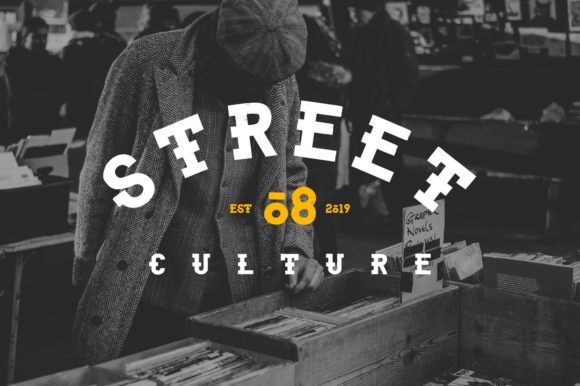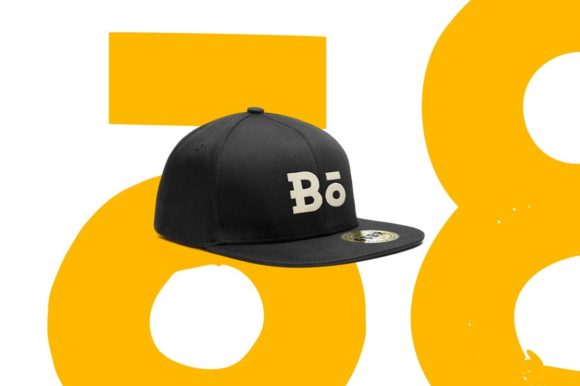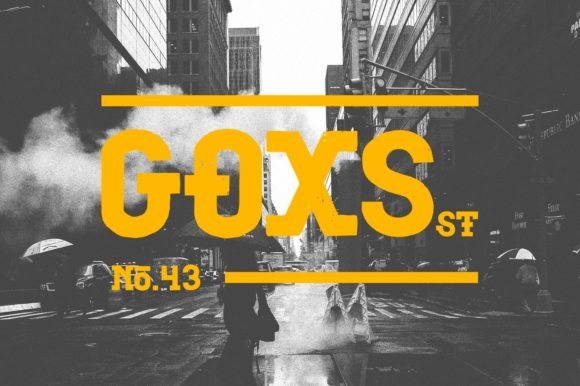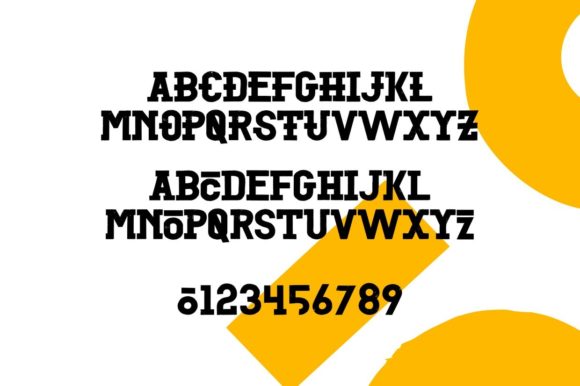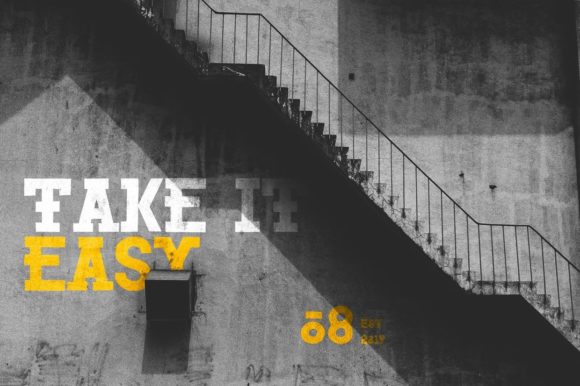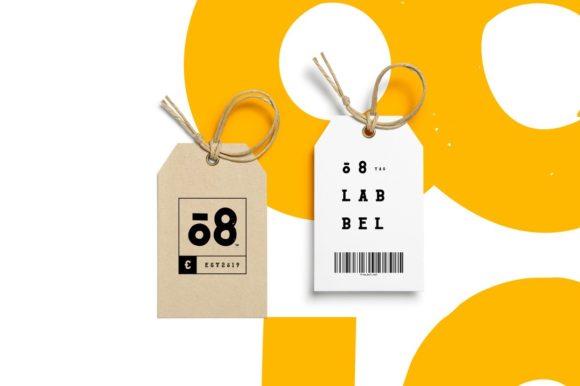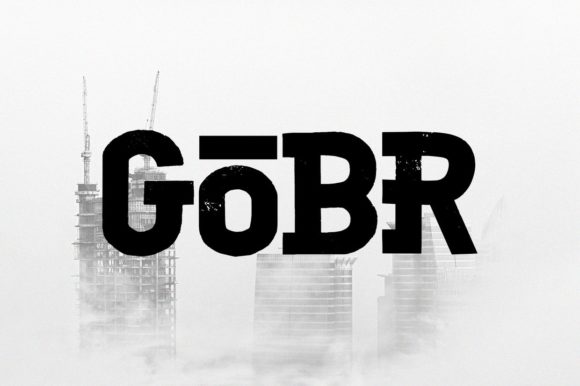
Gobr Font: The Ultimate Choice for Street-Themed Designs
In the world of typography, fonts play a crucial role in conveying the tone and personality of a brand. For designers and crafters looking to create bold and eye-catching designs with a street theme, Gobr Font is an excellent choice. This article will explore the features and benefits of Gobr Font, and why it’s perfect for designs related to street culture, skateboards, murals, hip hop, rap, and more.
What is Gobr Font?
Gobr Font is a bold and solemn slab serif font that exudes confidence and strength. Its robust body and unique design elements make it an ideal choice for designers looking to create striking designs that grab attention. One of the distinctive features of Gobr Font is its unsymmetrical arch of the line, which adds a touch of flexibility and dynamism to the font.
Key Features of Gobr Font
- Bold and solemn slab serif font: Gobr Font is designed to make a statement with its bold and sturdy serif lines.
- Strong body with flexible parts: The font has a robust body, but some parts are flexible, giving it a unique and dynamic feel.
- Unsymmetrical arch of the line: This feature adds a touch of asymmetry to the font, making it more visually appealing.
- Bit of noise for added texture: Gobr Font has a subtle noise effect that gives it a textured and organic feel, perfect for street-themed designs.
Perfect for Street-Themed Designs
Gobr Font is specifically designed for use in street-themed designs, making it an excellent choice for clothing brand designs, skateboard graphics, murals, hip hop, and rap-related projects. The font’s bold and confident personality is well-suited for designs that require a strong and edgy look.
Use Cases for Gobr Font
- Clothing brand designs: Gobr Font is perfect for designing logos, labels, and packaging for clothing brands with a street theme.
- Skateboard graphics: The font’s bold and dynamic design makes it ideal for creating eye-catching skateboard graphics.
- Murals and street art: Gobr Font can be used to create bold and colorful murals and street art that grab attention.
- Hip hop and rap-related projects: The font’s strong and confident personality makes it perfect for designing album covers, posters, and other promotional materials for hip hop and rap artists.
Why Choose Gobr Font?
With so many fonts available, why choose Gobr Font? Here are a few reasons:
- Unique design: Gobr Font has a distinctive design that sets it apart from other fonts.
- Versatility: The font can be used for a wide range of projects, from clothing brand designs to skateboard graphics.
- Easy to read: Despite its bold and dynamic design, Gobr Font is easy to read, making it perfect for use in a variety of contexts.
In conclusion, Gobr Font is an excellent choice for designers and crafters looking to create bold and eye-catching designs with a street theme. Its unique design, versatility, and ease of use make it perfect for a wide range of projects, from clothing brand designs to skateboard graphics, murals, hip hop, and rap-related projects. If you’re looking for a font that will help you create striking designs that grab attention, look no further than Gobr Font.